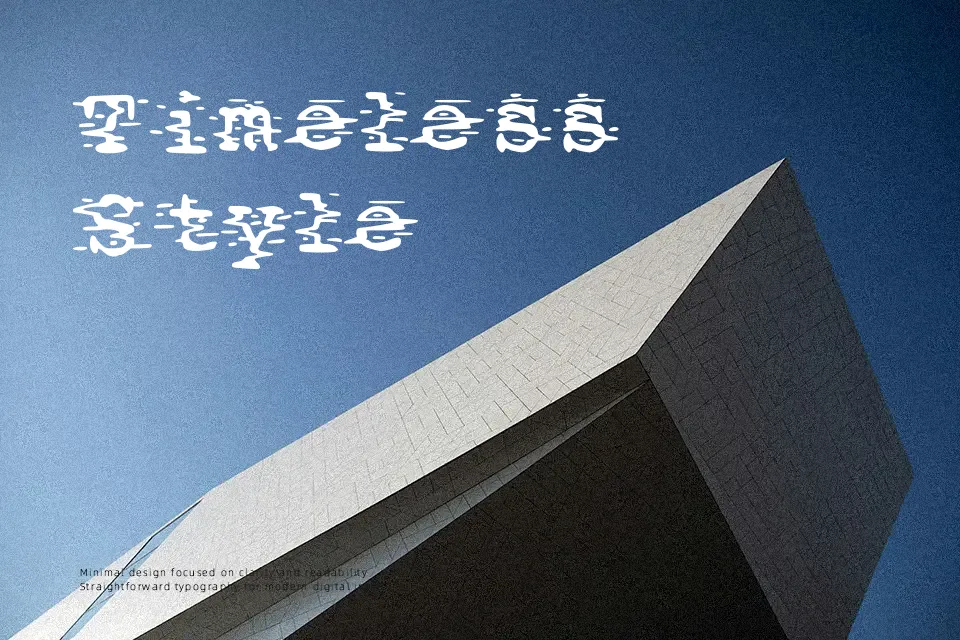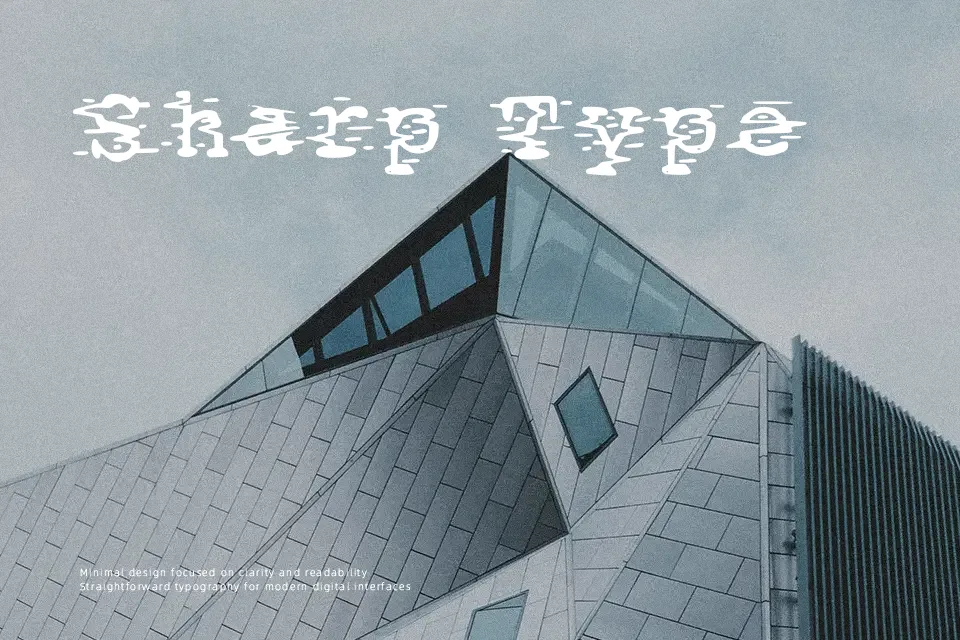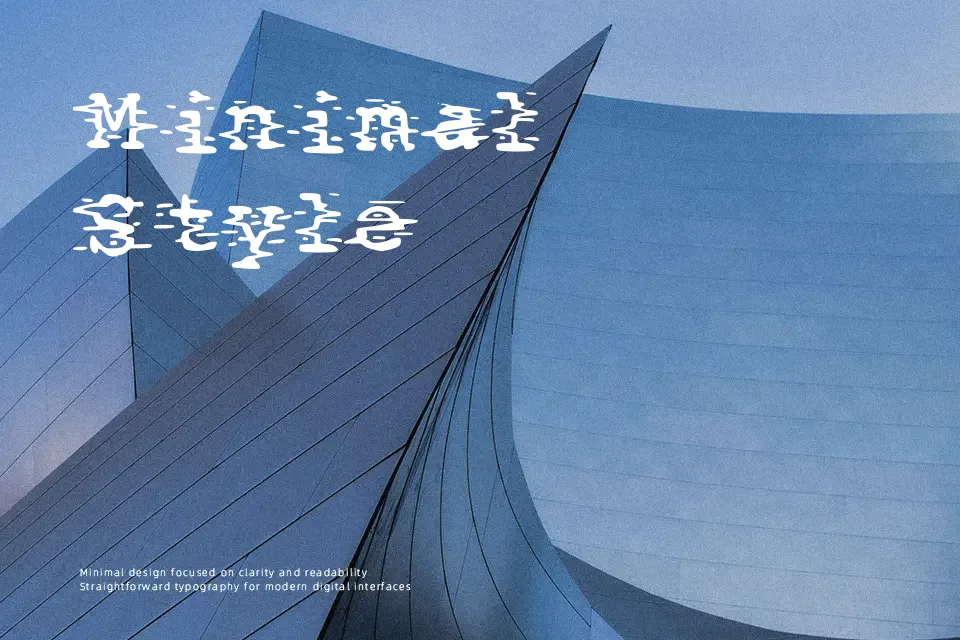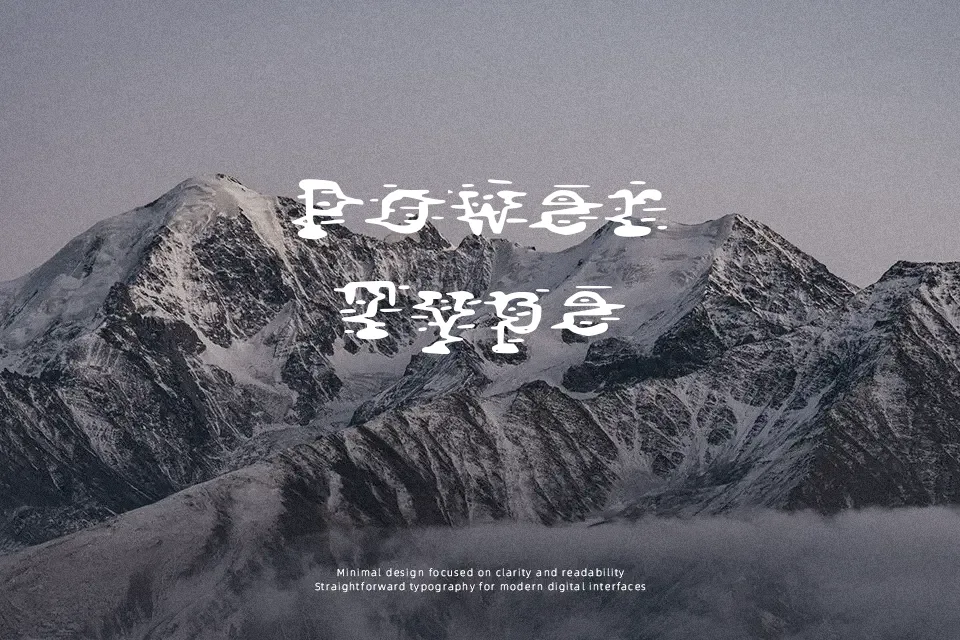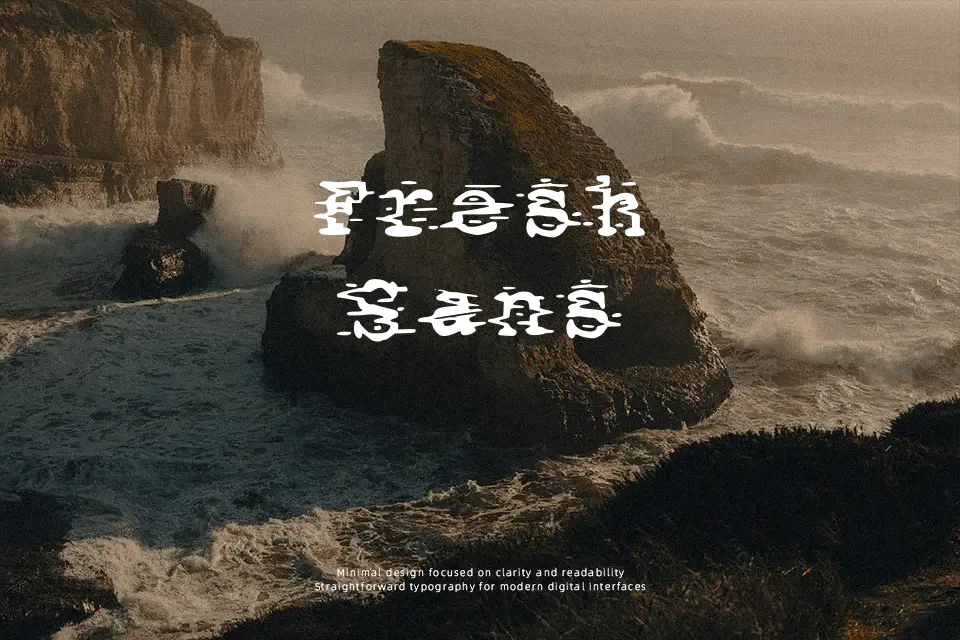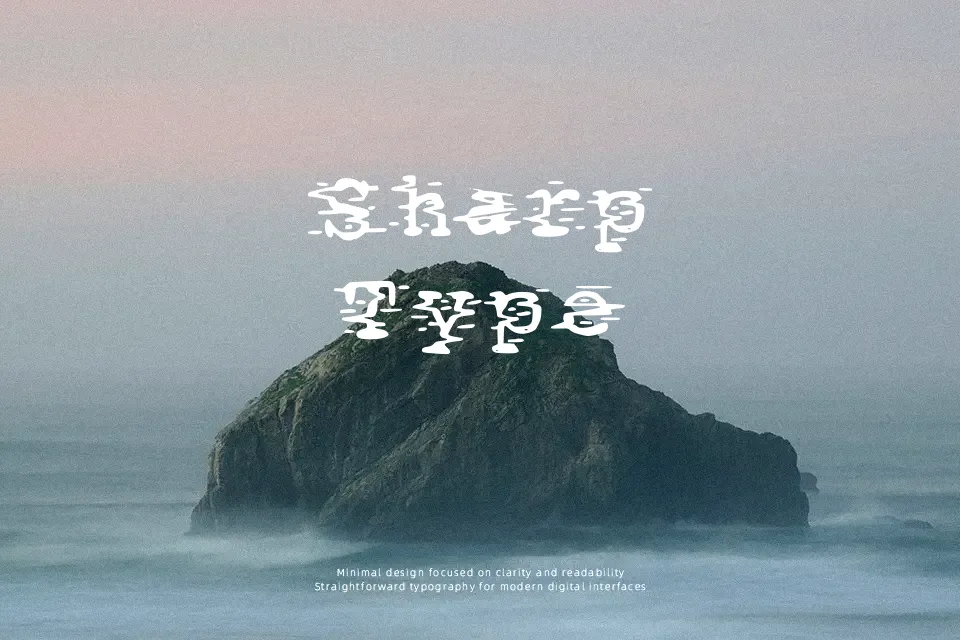
Static Font
Static Font introduces a disrupted typographic aesthetic characterized by horizontal displacement lines, fractured stems, and jagged contours that emulate analog broadcast interference. The underlying glyph construction relies on bold sans-serif proportions, yet the heavy visual noise breaks conventional silhouettes into segmented geometric shards. Tight default spacing concentrates the energy of each character, producing strong graphic weight across short headlines and display banners. However, the aggressive disintegration of internal counters substantially impairs letter differentiation at smaller scales. While the typeface excels in high-energy gaming graphics and album packaging, dense text blocks quickly become illegible. The fragmented letterforms maintain striking focal power when isolated in large display compositions.
Best For: electronic music album covers,sci-fi video game titles,motion graphic title cards,promotional event posters
Not Ideal For: continuous body text,mobile interface labels,dense editorial paragraphs,legal documentation
Perfect for gaming, headline, and music, with a dramatic and decorative style.